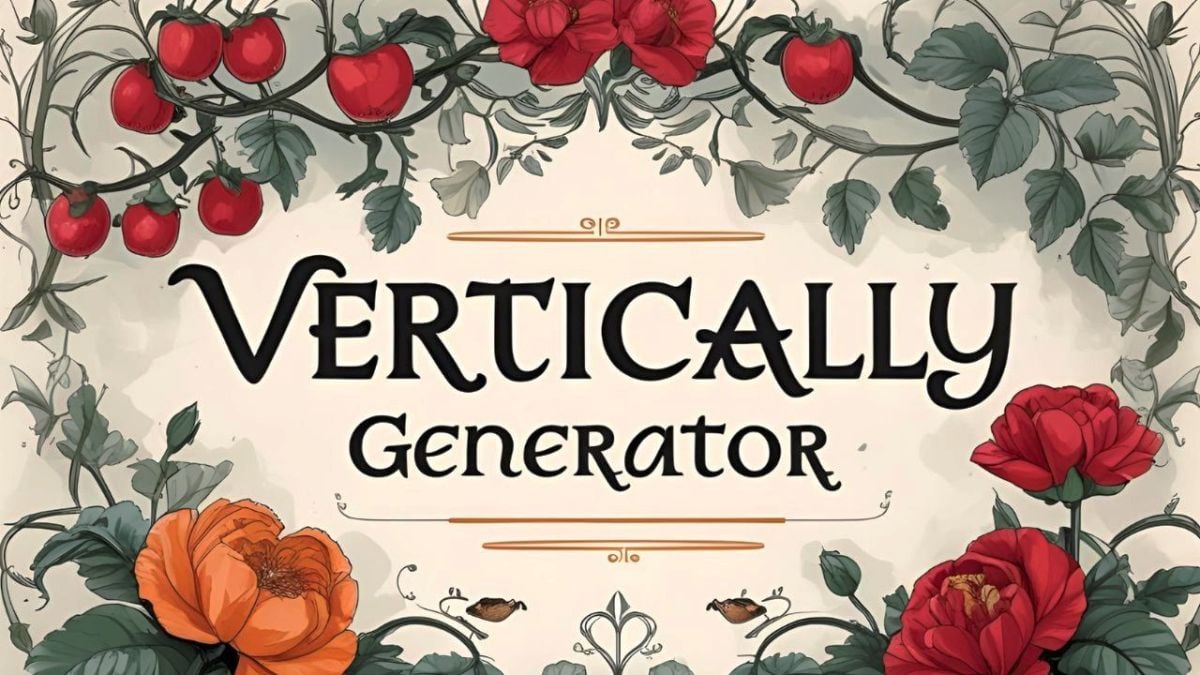
Vertically Font Generator
Create stunning vertical typography with advanced styling options and modern effects
Create modern, eye-catching vertical text for your social media, branding, or digital art! Use our Vertical Font Generator to preview and design unique vertical typography. Download the vertical font for free and elevate your creative projects with a contemporary touch.
The Vertical font is designed for modern creators who want to break the mold of traditional horizontal text. Its unique structure lets you stack letters vertically, making your designs stand out in social feeds, posters, banners, and more. Whether you’re a designer, influencer, or hobbyist, this font brings a sleek, innovative look to any project.
Our Vertical Font Generator lets you preview your text in this distinctive style and download the font for your own creative projects—perfect for vertical banners, Instagram stories, and bold branding concepts.
Modern Vertical Typography
Transform ordinary text into stunning vertical layouts for banners, logos, and digital art.
Where to Use the Vertical Font
• Social Media: Make Instagram stories, TikTok posts, or banners stand out with bold vertical text.
• Branding: Create unique logos, business cards, and signage with a modern twist.
• Posters & Flyers: Add a dynamic, eye-catching element to event promotions and advertisements.
• Web Design: Use vertical text for menus, sidebars, and creative layouts.
• Personal Projects: Bring a fresh look to digital scrapbooks, invitations, and more (personal use only).
Design Tips for Vertical Fonts
• Use Contrasting Colors: Vertical fonts pop with bold backgrounds and high-contrast palettes.
• Keep It Simple: Let the vertical orientation be the star—avoid overcrowding your design.
• Spacing Matters: Adjust letter spacing for readability and balance.
• Mix & Match: Combine vertical text with horizontal elements for dynamic layouts.
What makes the vertical font unique?
Its upright, stacked style is perfect for modern, bold, and unconventional designs—ideal for standing out on social media and in branding.